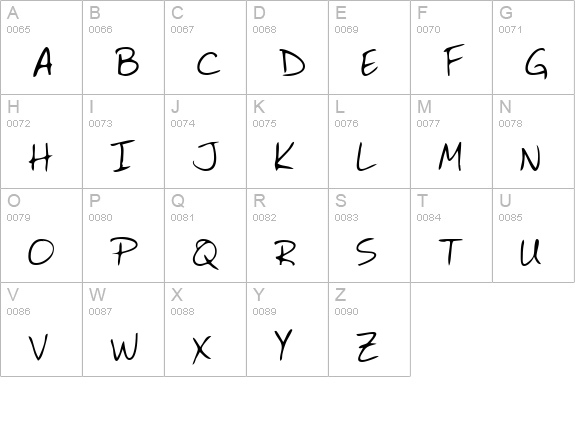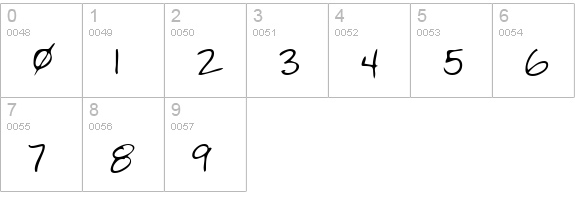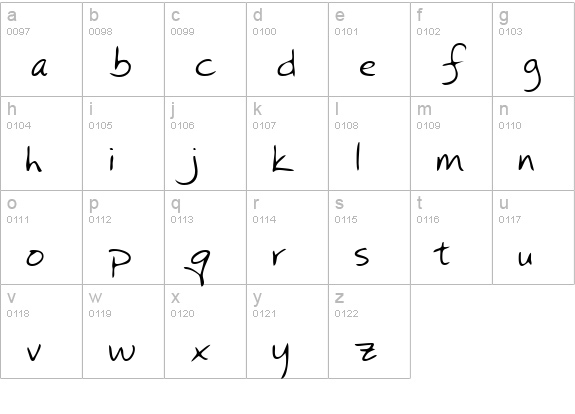
DianasHand Regular Font Details
DianasHand Regular is the standard, neutral variant in the DianasHand typeface family \xE2\x80\x94 well suited to general body text, paragraphs, and standard typographic work.
DianasHand Regular font is a charming and elegant typeface that exudes a sense of sophistication and grace. Its flowing lines and delicate curves give a handwritten touch to any design project. This versatile font is perfect for adding a personal and unique flair to invitations, greeting cards, logos, and more. What makes DianasHand Regular font even more appealing is that it is completely free to download from FontsMarket.com. This means you can easily access this beautiful font and use it in your creations without any cost. Don't miss out on the opportunity to enhance your designs with the beauty of DianasHand Regular font - download it today and elevate your projects to the next level.